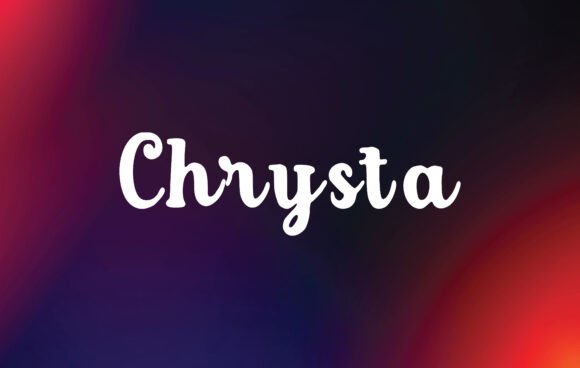
Chrysta Font: Elevate Your Creative Ideas with this Lovely Handwritten Font
In the world of typography, a good font can make all the difference in taking your creative ideas to the next level. If you’re looking for a font that can help you create stunning logos, branding, and quotes, then look no further than Chrysta Font. This beautiful handwritten font has the potential to elevate your designs and make them stand out from the crowd.
What is Chrysta Font?
Chrysta Font is a lovely and beautiful handwritten font that is perfect for creative projects. Its unique and elegant design makes it an excellent choice for designers, artists, and crafty people who want to add a personal touch to their work.
This font is designed to be versatile and can be used for a wide range of projects, from logos and branding to quotes and social media graphics. Its handwritten style gives it a friendly and approachable feel, making it perfect for designs that require a personal touch.
Key Features of Chrysta Font
- Handwritten style: Chrysta Font has a beautiful handwritten style that gives it a unique and personal touch.
- Elegant design: The font has an elegant design that makes it perfect for creating stunning logos, branding, and quotes.
- Versatile: Chrysta Font can be used for a wide range of projects, from digital designs to print materials.
- Easy to read: The font is easy to read, making it perfect for designs that require a clear and concise message.
What Can You Use Chrysta Font For?
Chrysta Font is a versatile font that can be used for a wide range of projects, including:
- Logos and branding: Create stunning logos and branding materials that will help your business stand out.
- Quotes and social media graphics: Use Chrysta Font to create beautiful quotes and social media graphics that will engage your audience.
- Digital designs: Use the font for digital designs, such as website headers, email newsletters, and more.
- Print materials: Chrysta Font can also be used for print materials, such as brochures, flyers, and posters.
Benefits of Using Chrysta Font
Using Chrysta Font can bring several benefits to your designs, including:
- Unique and creative designs: Chrysta Font can help you create unique and creative designs that will stand out from the crowd.
- Personal touch: The font’s handwritten style gives it a personal touch, making it perfect for designs that require a friendly and approachable feel.
- Easily readable: Chrysta Font is easy to read, making it perfect for designs that require a clear and concise message.
Tips for Using Chrysta Font
Here are some tips for using Chrysta Font effectively:
- Use it for headlines and titles: Chrysta Font is perfect for headlines and titles, where its elegant design can shine.
- Pair it with other fonts: Experiment with pairing Chrysta Font with other fonts to create a unique and creative design.
- Use it for digital and print materials: Chrysta Font can be used for both digital and print materials, making it a versatile font for any design project.
In conclusion, Chrysta Font is a lovely and beautiful handwritten font that has the potential to elevate your creative ideas to the highest level. Its elegant design, versatility, and ease of use make it an excellent choice for designers, artists, and crafty people who want to add a personal touch to their work.